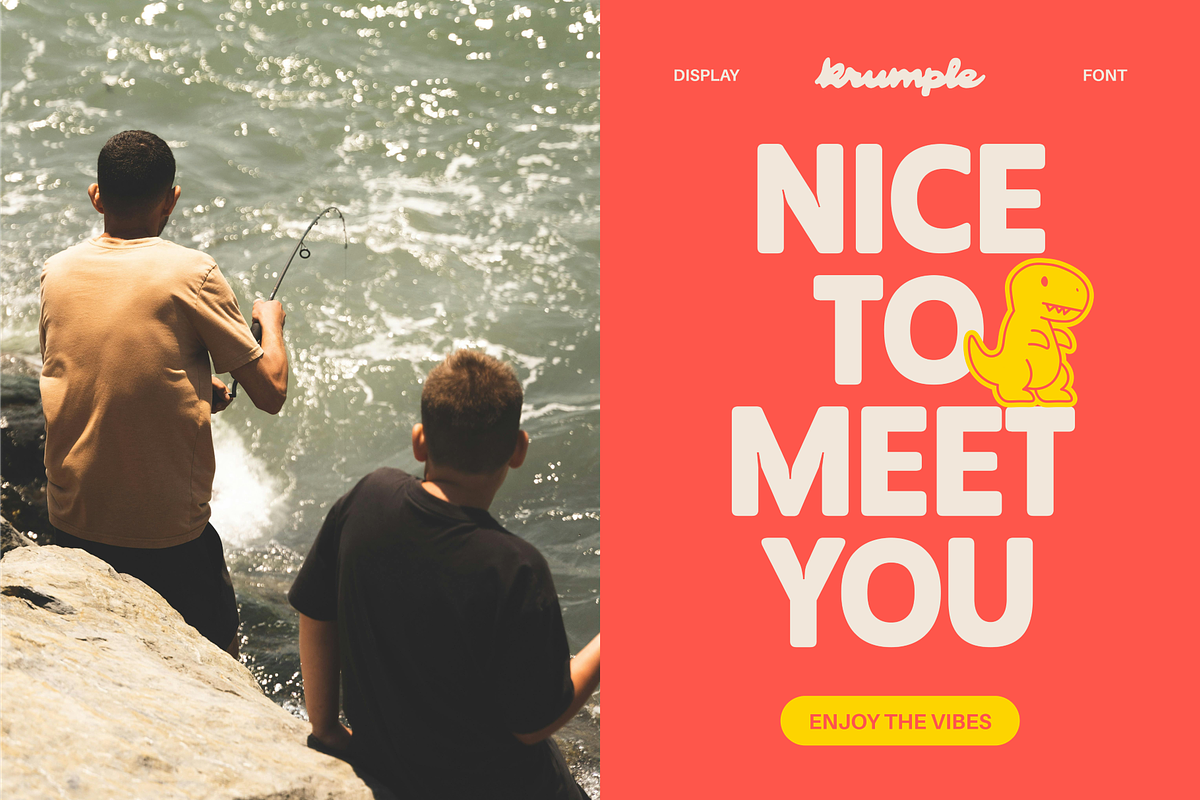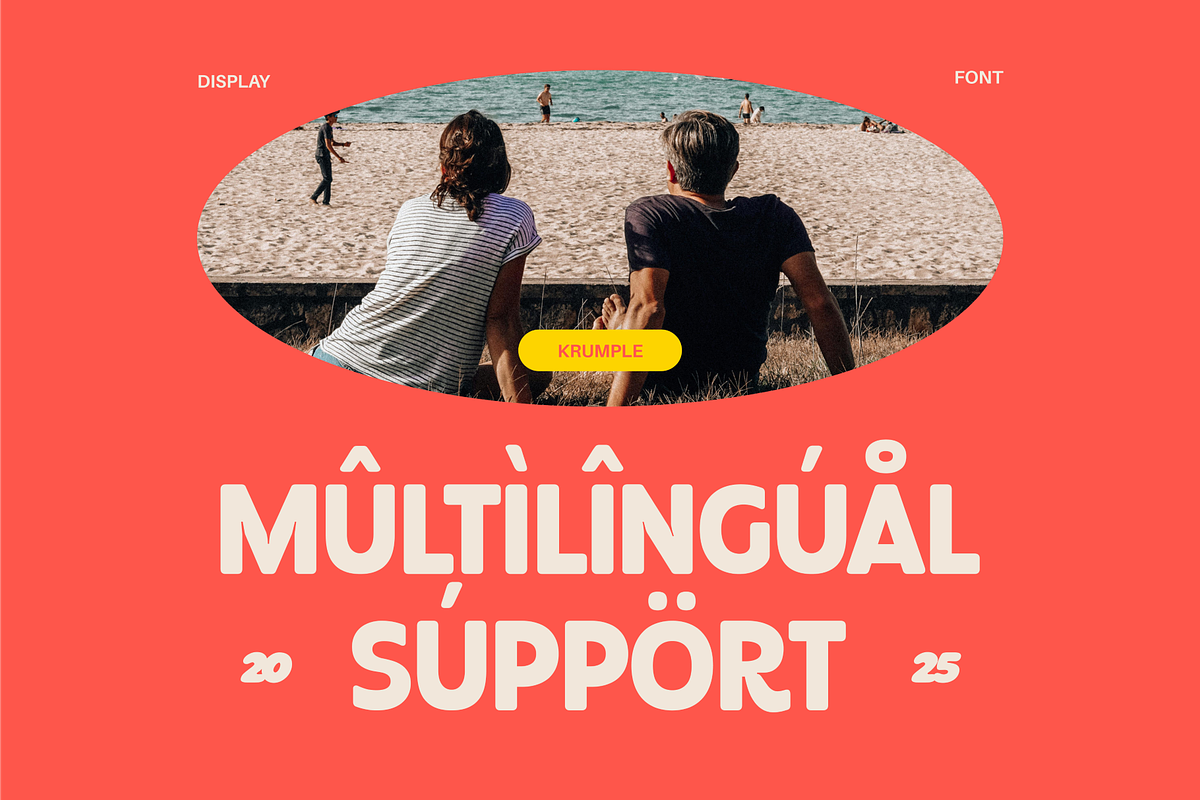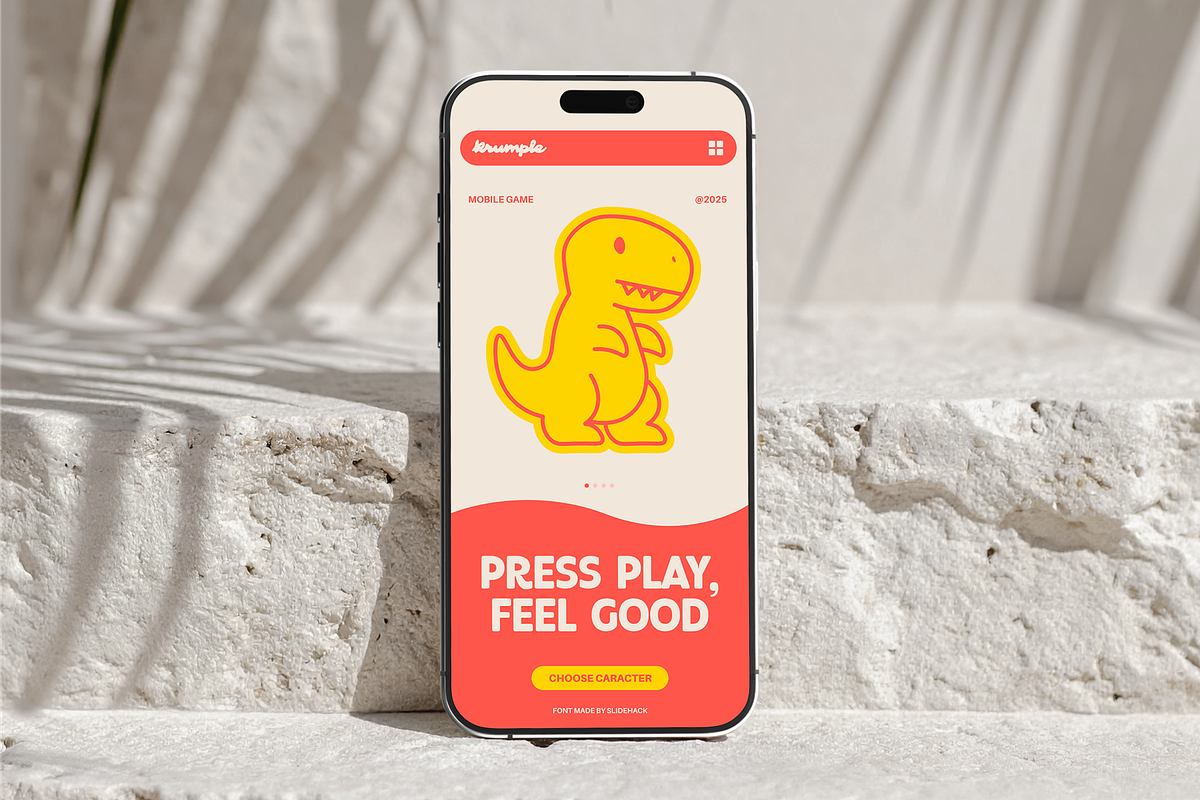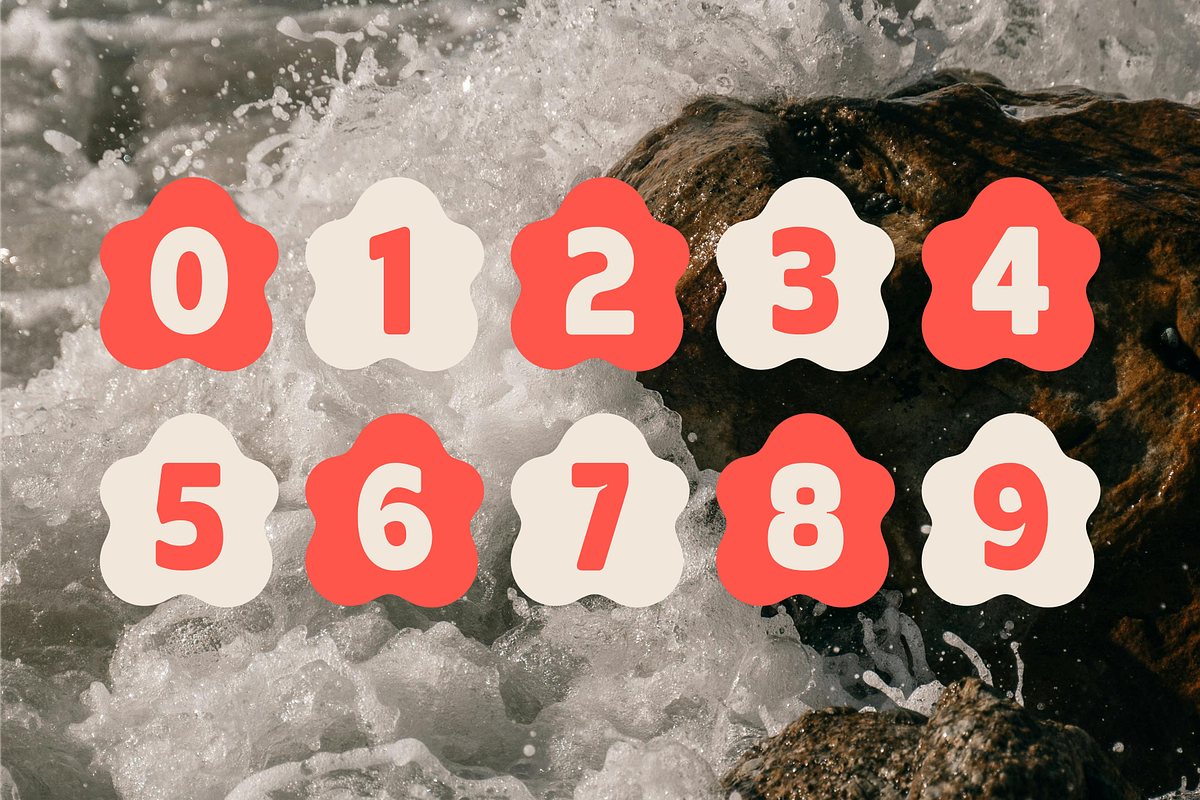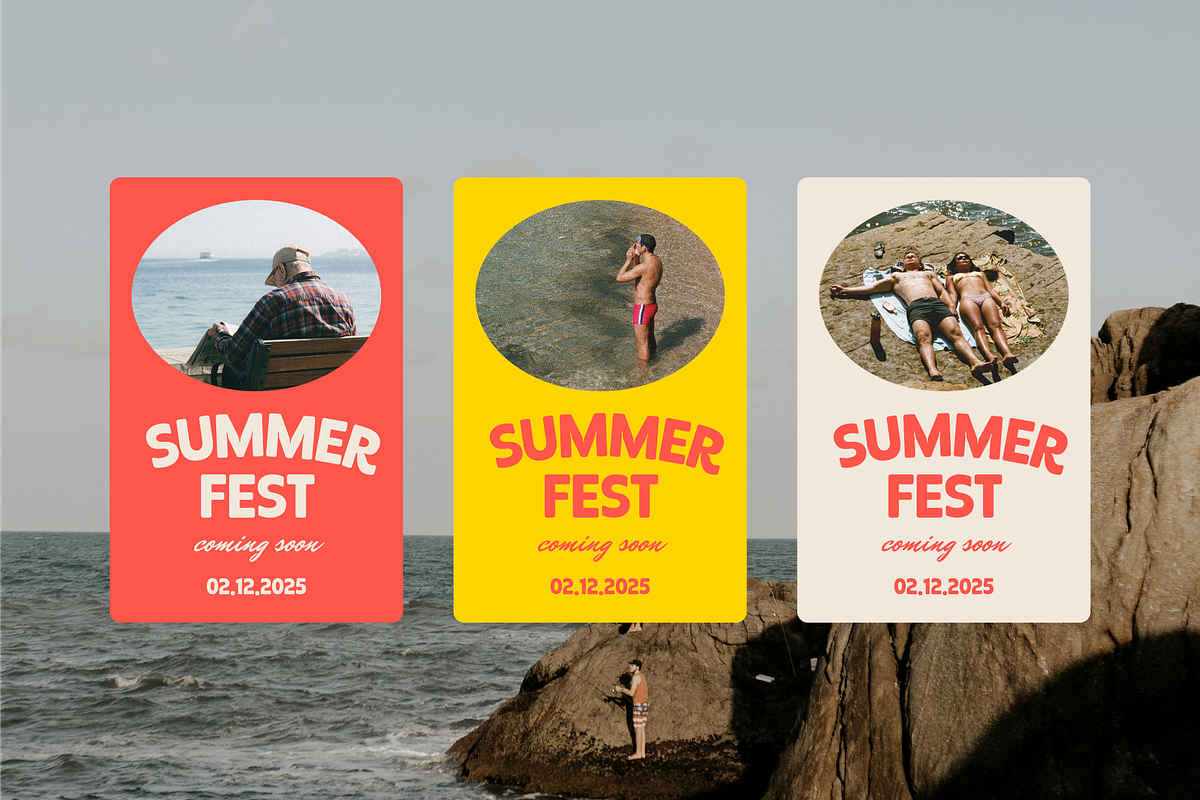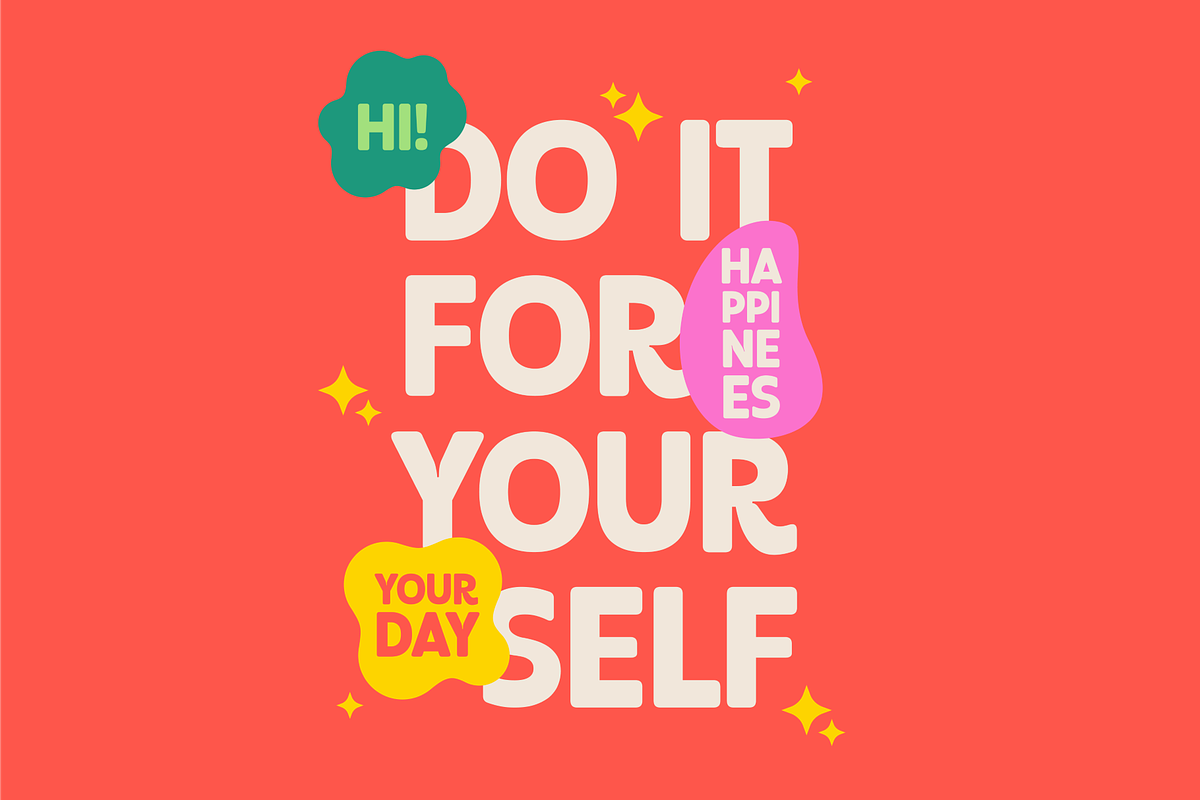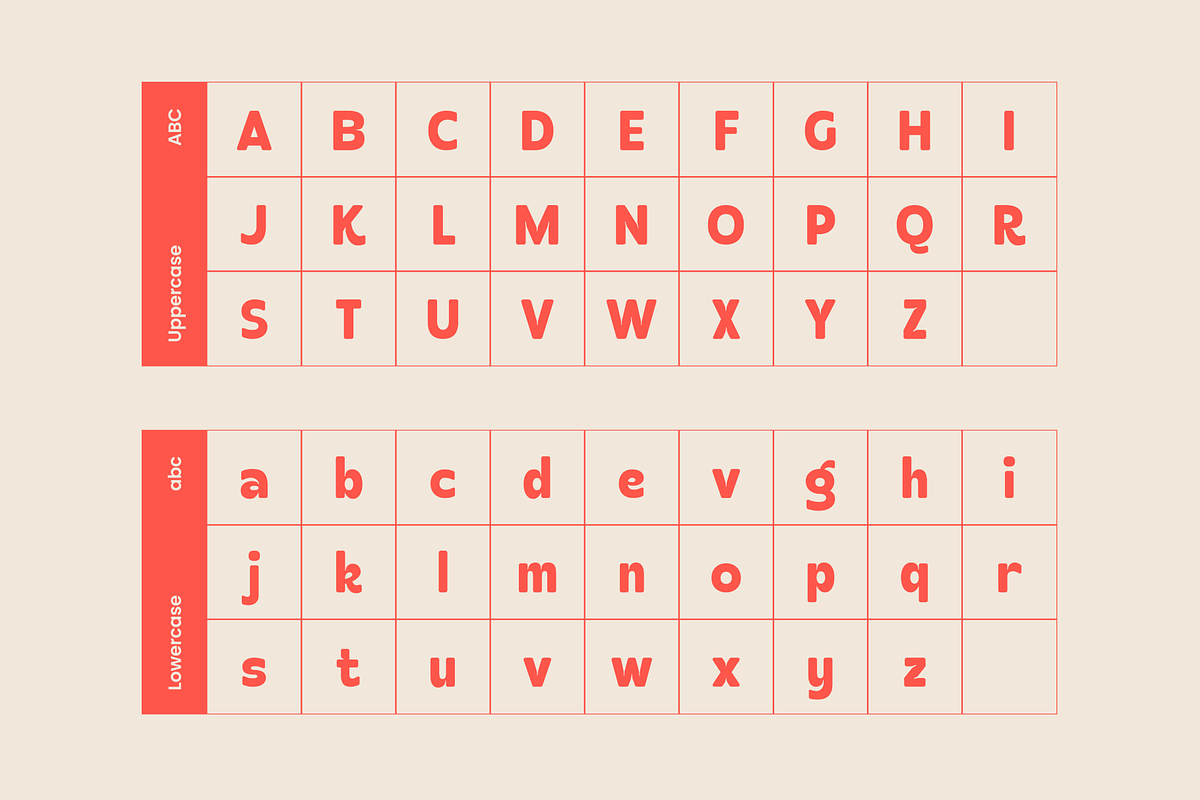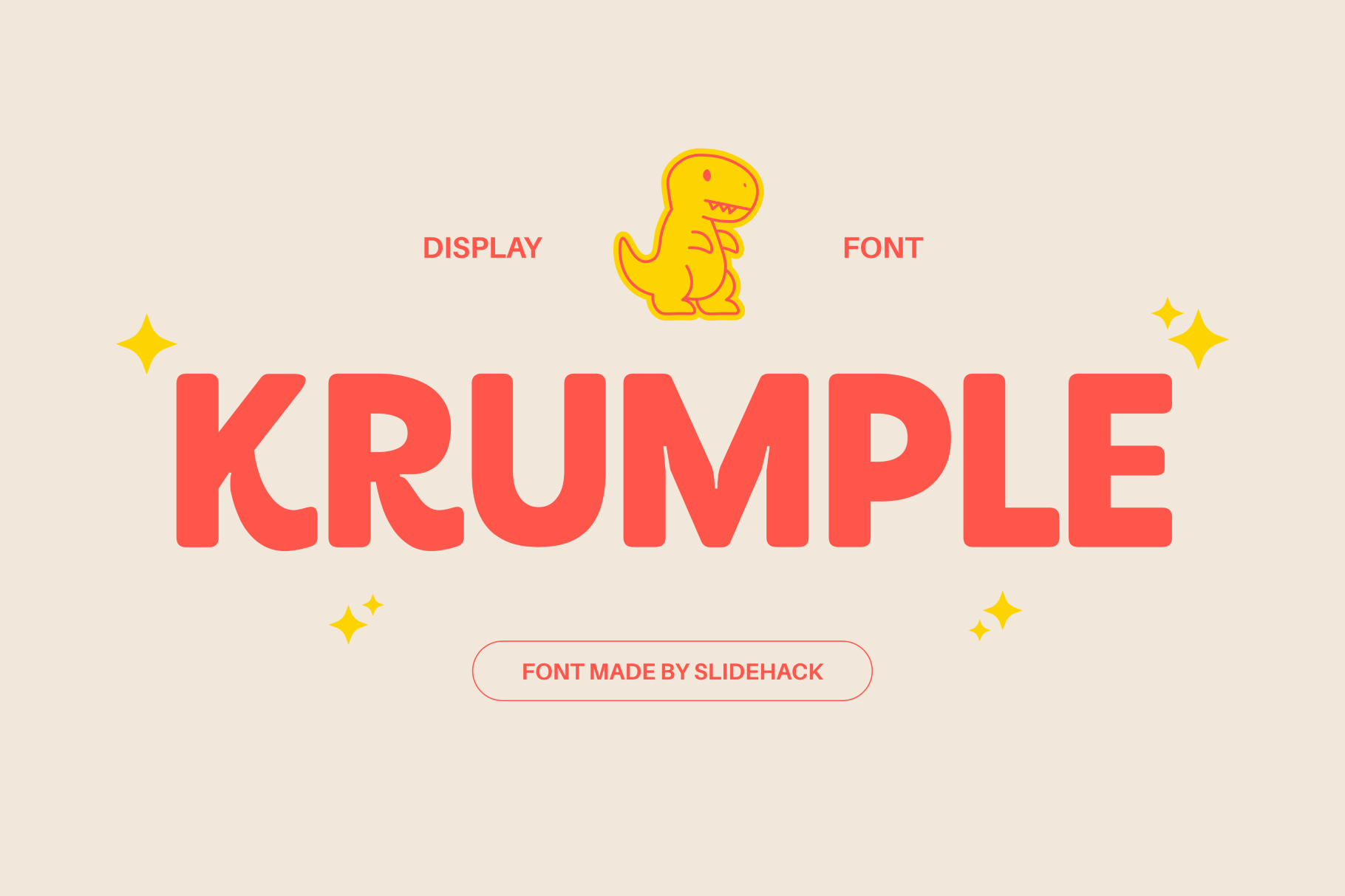
Krumple - Display Font
Krumple is a bold, playful display font perfect for branding, posters, packaging, and social media. Featuring rounded edges and fun character shapes, it adds charm to any design. Ideal for children’s themes, creative projects, and standout headlines. Easy to use in all design software.